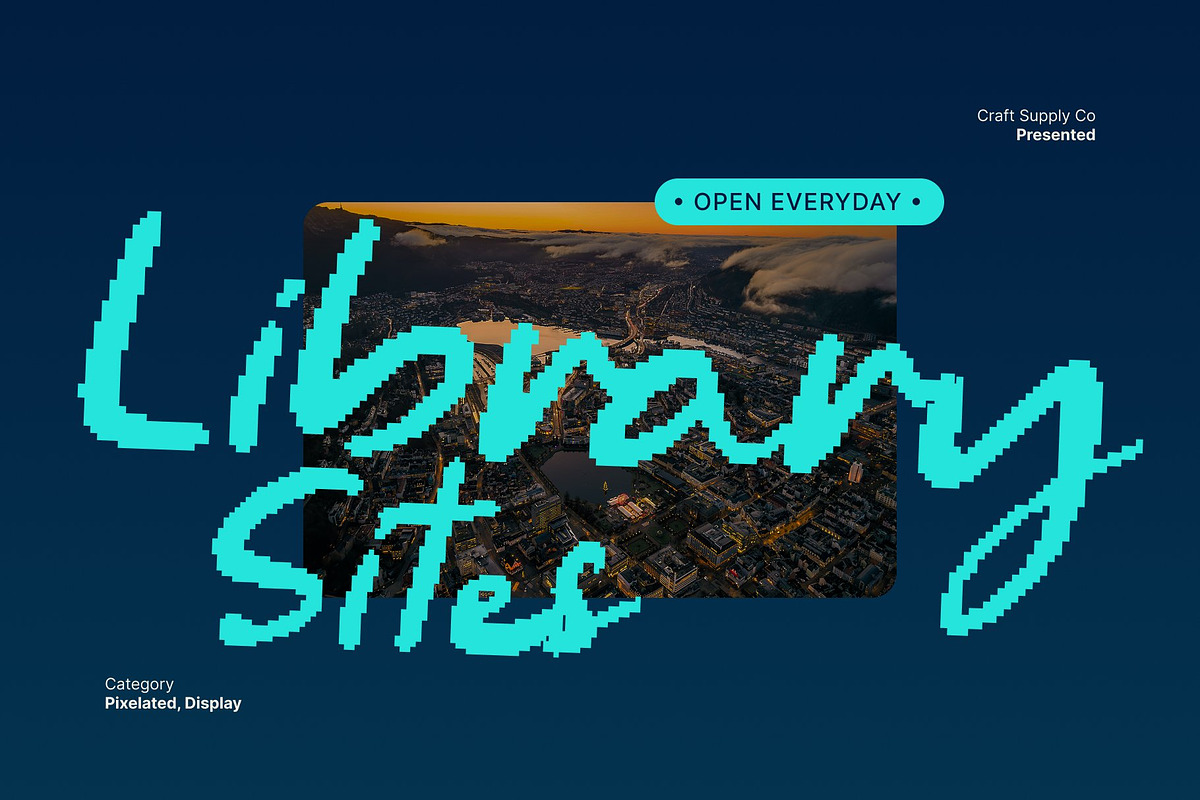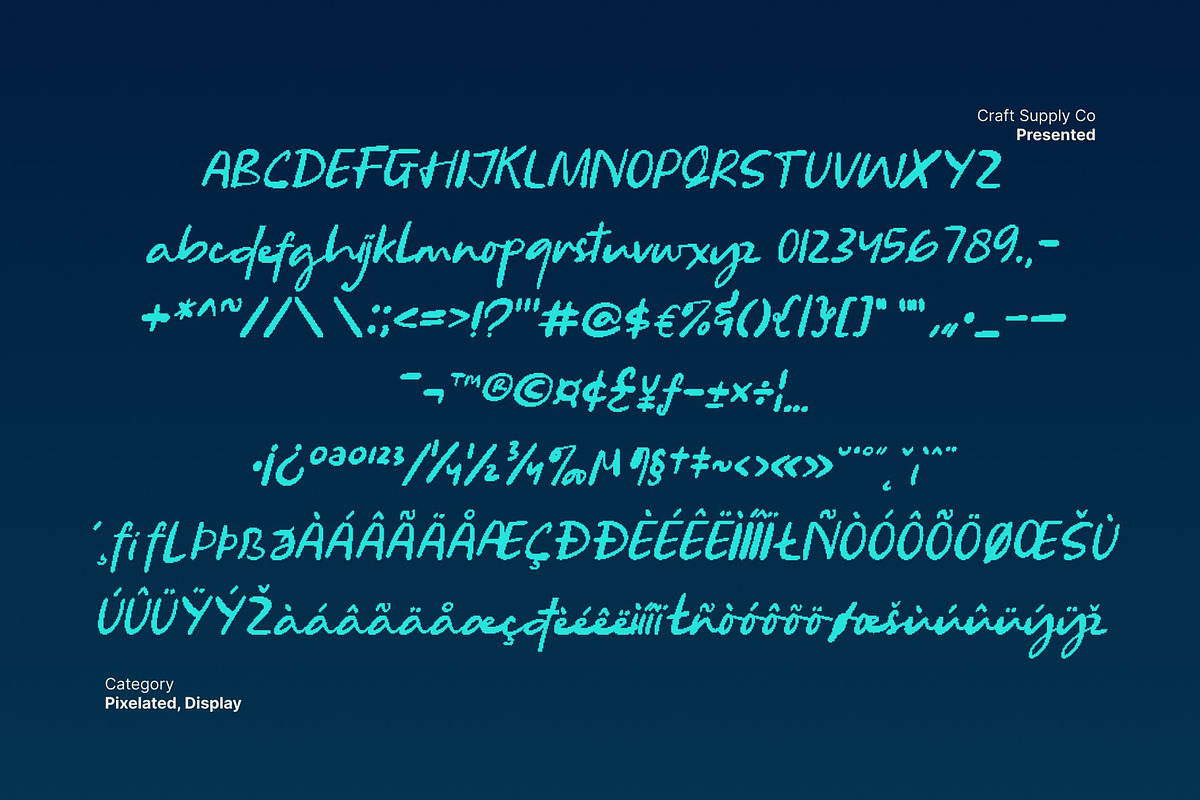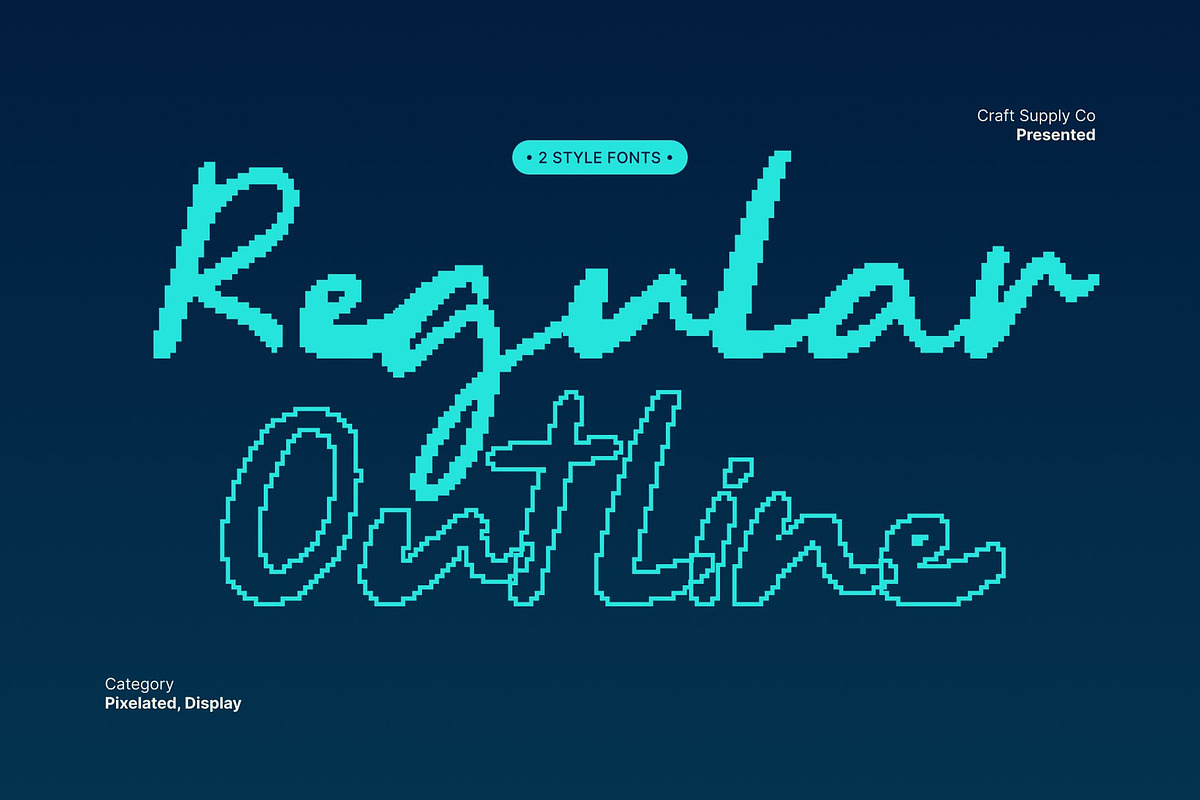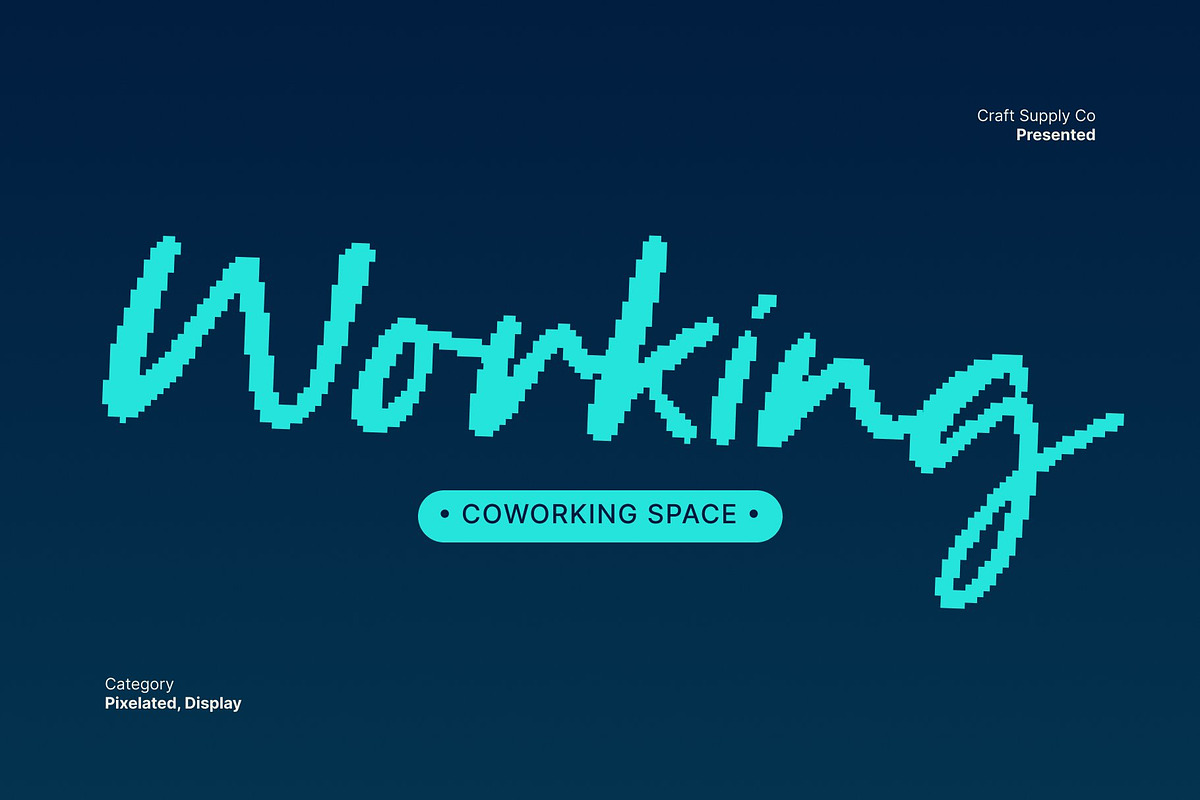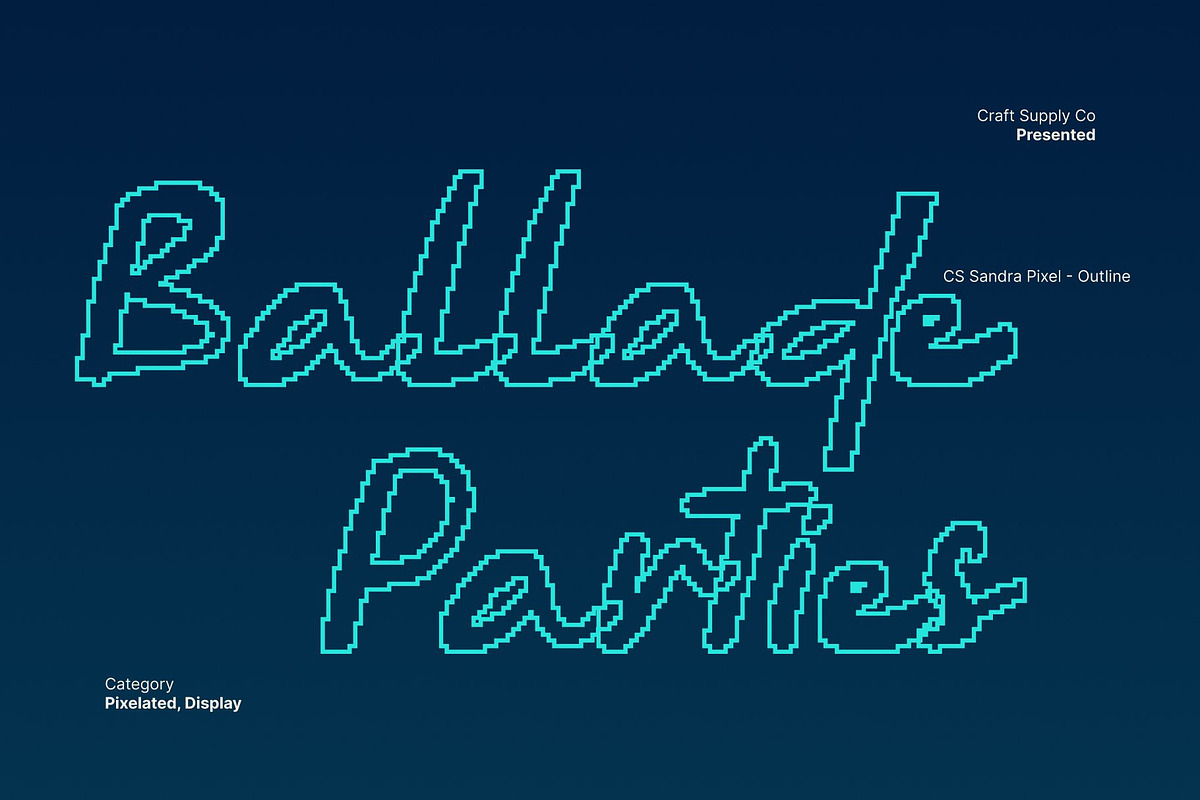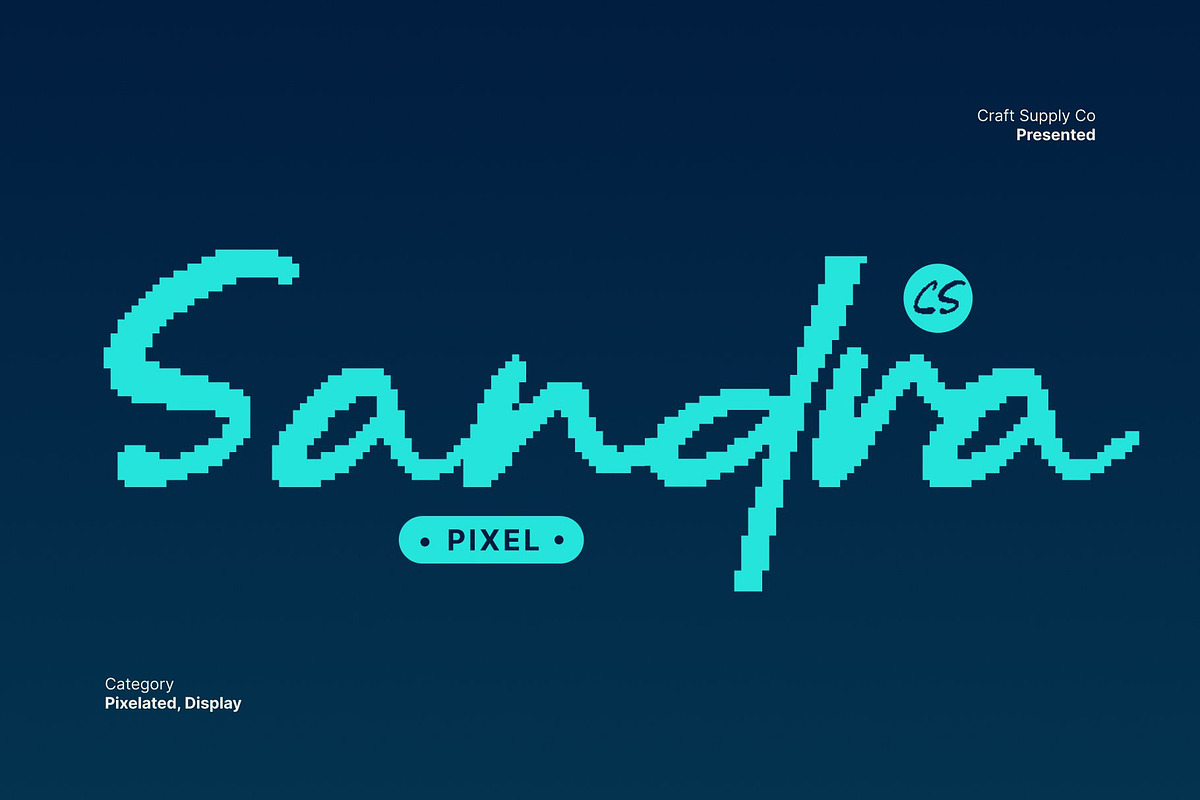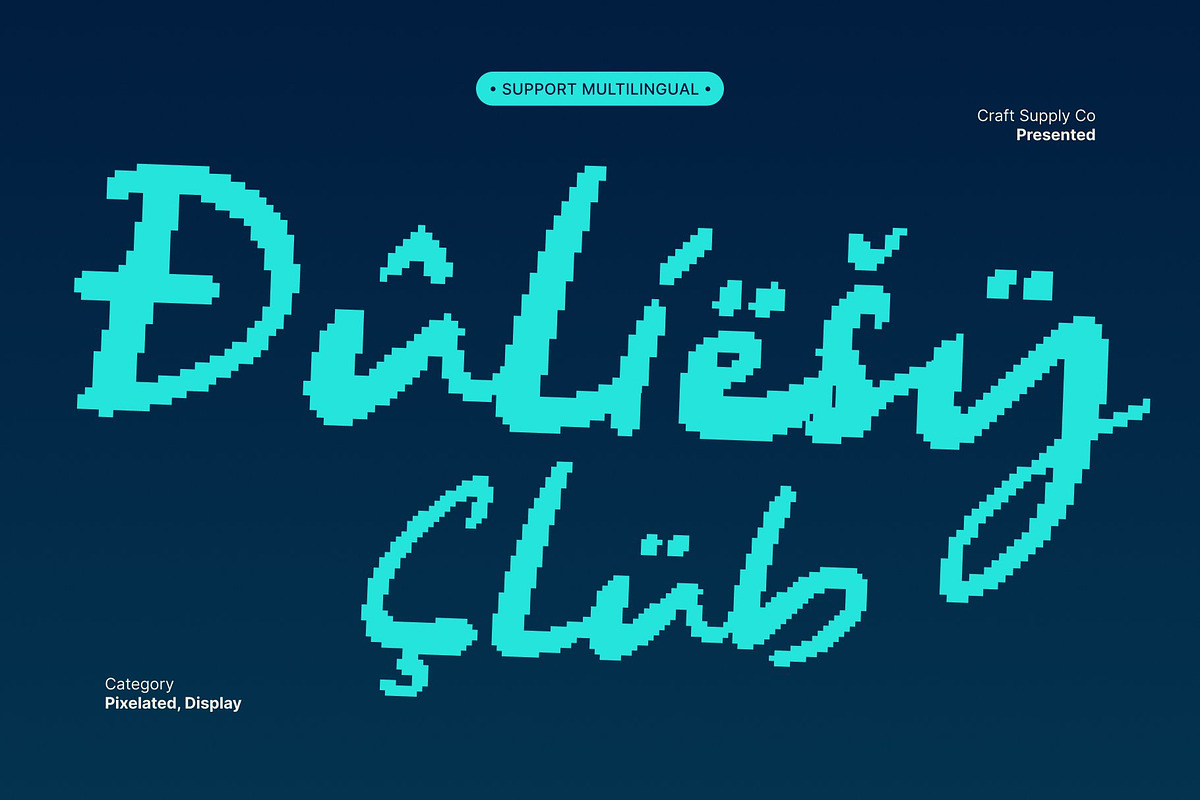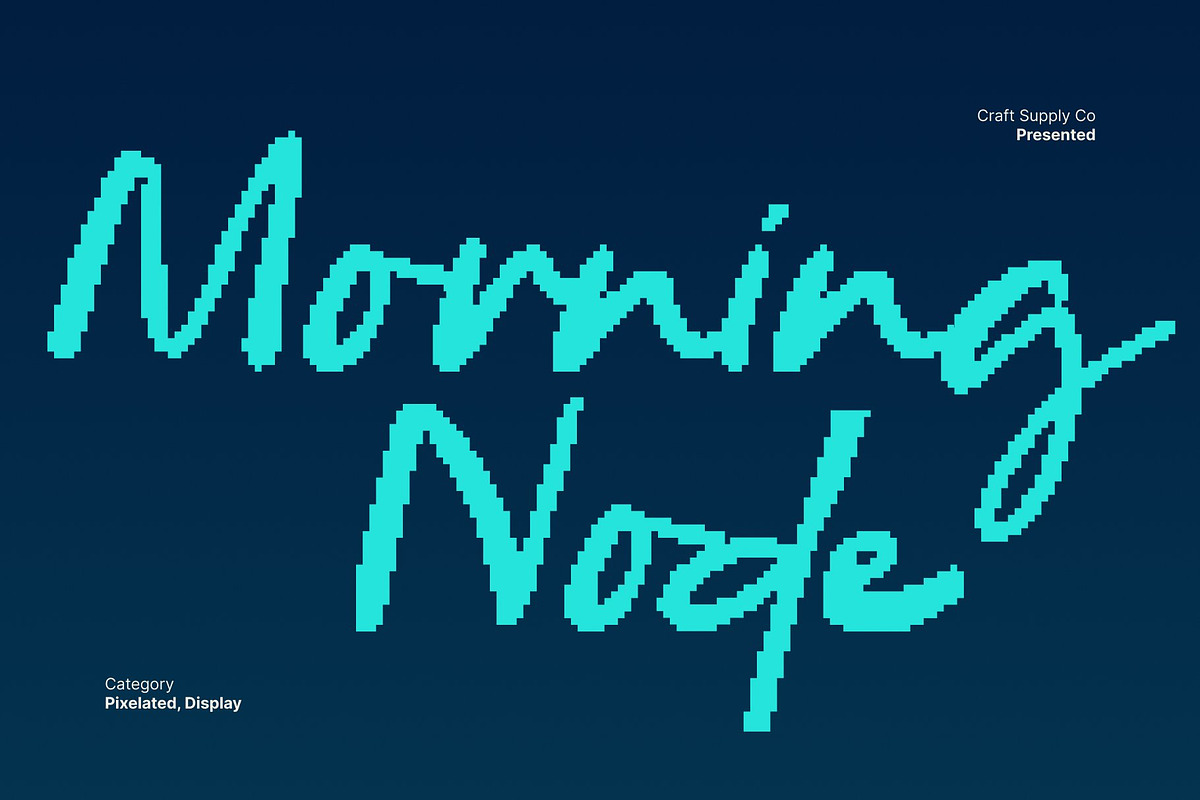
CS Sandra Pixel
CS Sandra Pixel – Relaxed Summer Vibes with Pixelated Handwritten Warmth
Summer Script Font with Relaxed Pixel Character This is a relaxed summer script font that blends natural handwritten warmth with a charming pixel-based construction. Inspired by carefree summer moments and casual handwriting, this font brings a friendly, easygoing personality while its pixel style adds a unique digital and retro-tech twist.
Natural Handwriting Interpreted in Pixel Form The letterforms are built from organic handwritten strokes translated into pixel shapes, preserving the natural flow and softness of real handwriting. Subtle pixel variations replace traditional stroke pressure, creating a handcrafted feel with a digital texture. This fusion gives the font a human, approachable tone while celebrating the aesthetic of old screens and pixel-based visuals.
Relaxed Summer Mood with Retro-Digital Charm This font carries a light, sunny rhythm that instantly evokes relaxed lifestyle storytelling. The combination of smooth script movement and structured pixel geometry creates a playful contrast casual yet distinctive. It feels cheerful, nostalgic, and creative, making every message feel relaxed while still visually striking on digital platforms.
Perfect for Digital, Retro, and Lifestyle Designs This font is ideal for summer posters, branding, invitations, café menus, travel themes, lifestyle products, social media graphics, and retro-inspired digital visuals. This font shines especially in screen-based designs, game-inspired layouts, and creative projects that want a warm handwritten feel with a pixel-art edge.